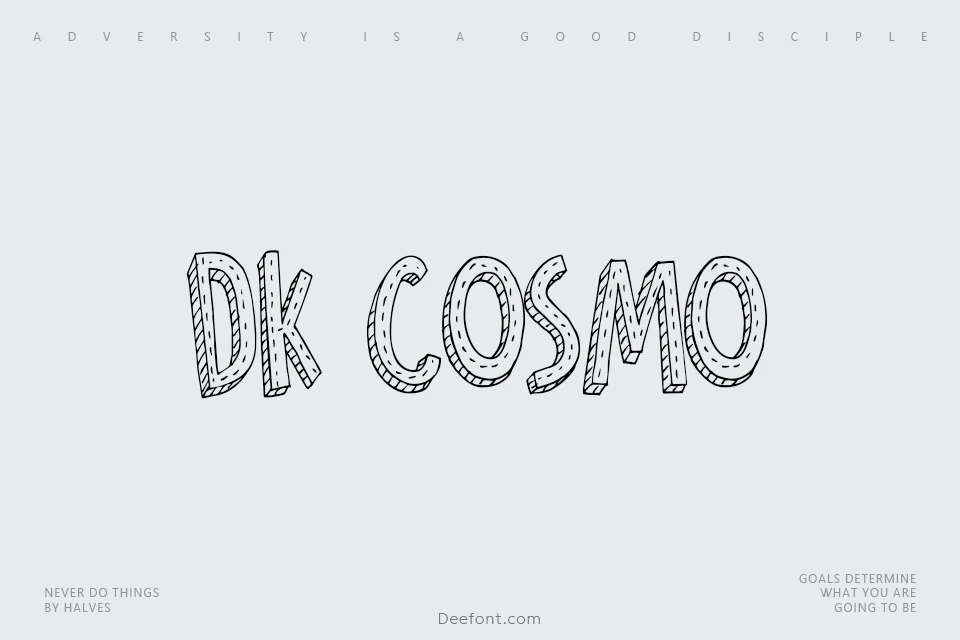
DK Cosmo Stitch Font
DK Cosmo Stitch Font is a playful, hand-drawn display font that mimics the look of stitched embroidery. Its whimsical, textured letterforms make it ideal for creative projects, crafts, children’s books, and any design seeking a touch of handmade charm.